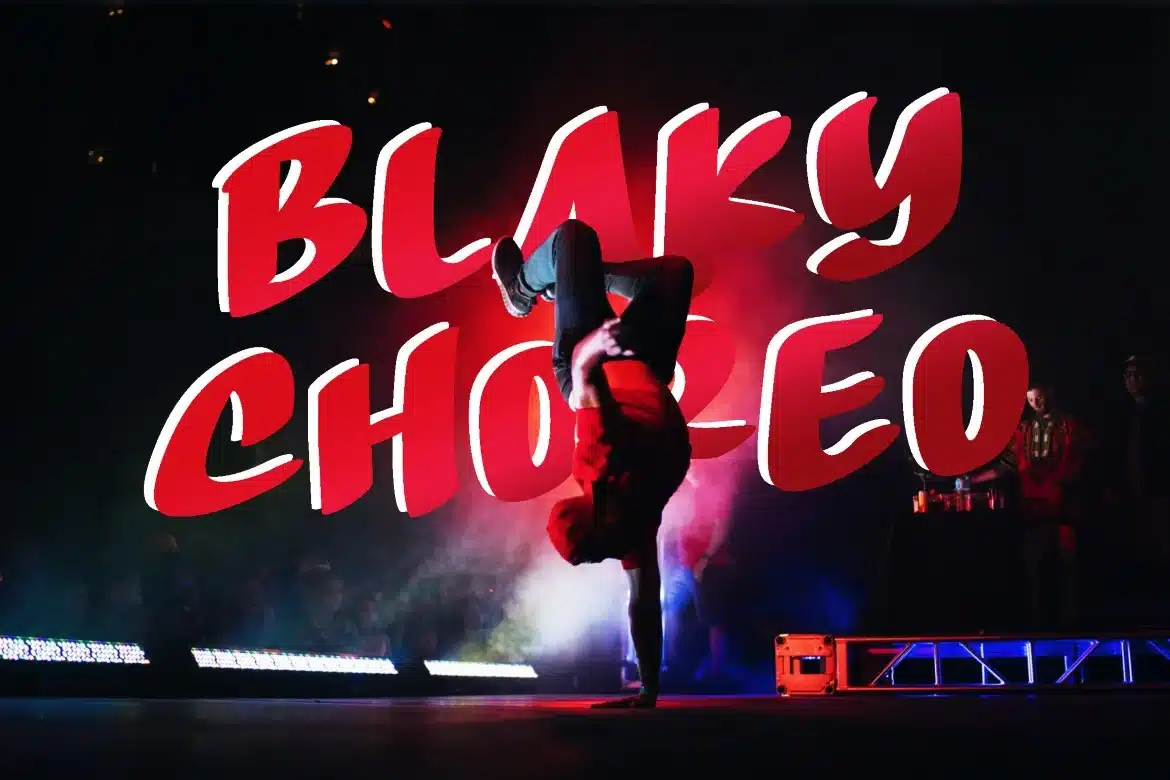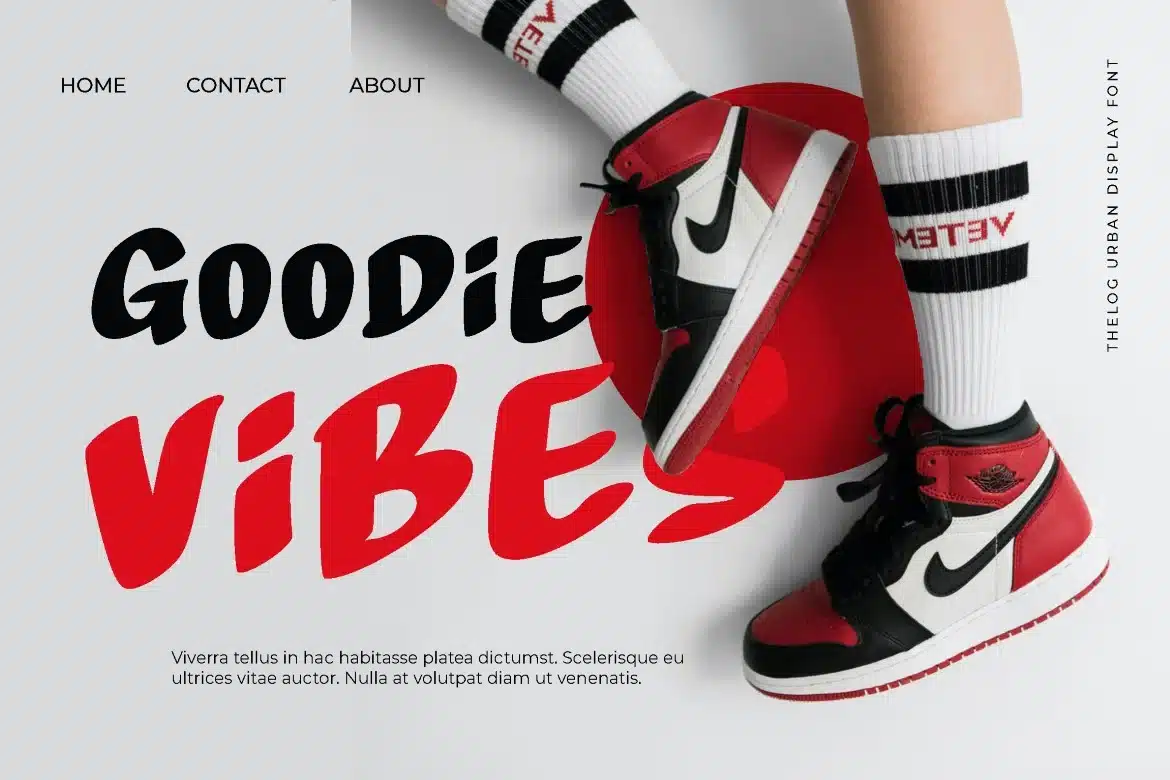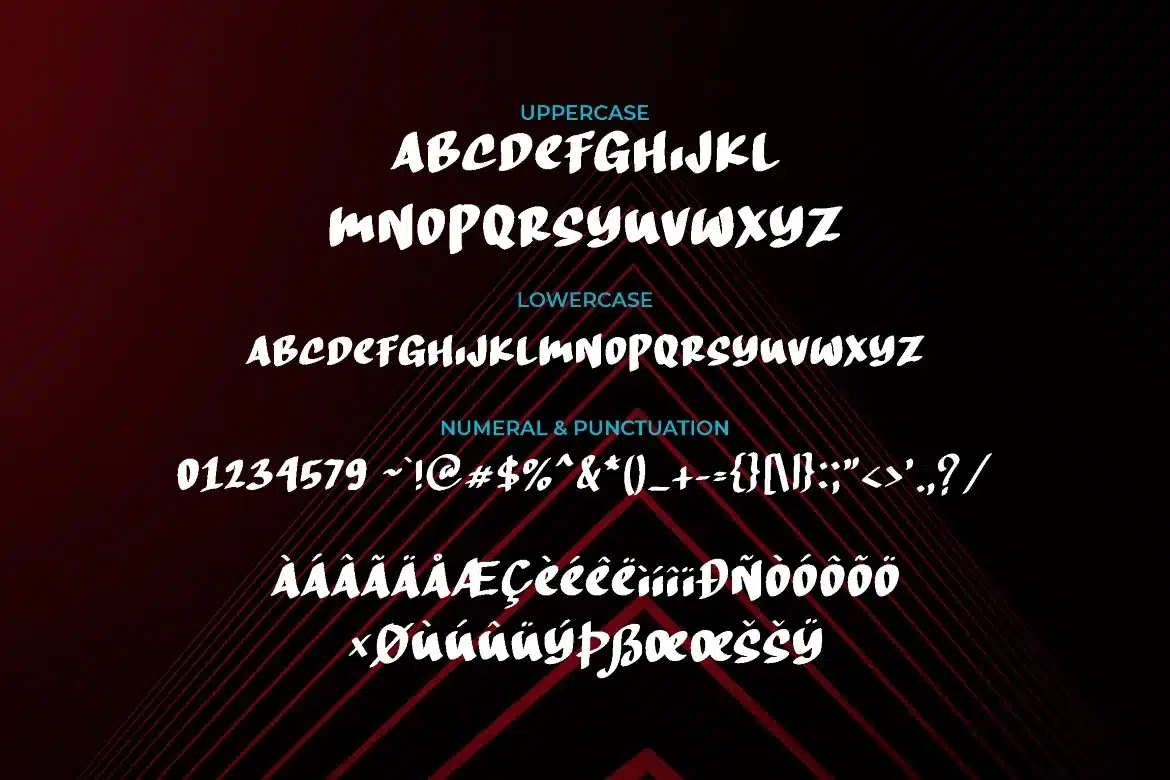
Thelog Font
Thelog font is perfect font for any designer's purpose like logo, poster, quote, advertisement. Made carefully with manual touch and digitalized with professional software. This font comes with standard feature and basic multilingual characters like ÀÁÂÃÄÅ, ÇÐ, ÈÉÊË, ÌÍÎÏ, Ñ, ØÒÓÔÕÖ, ÙÜÚÛ and ÝŸỲŸ.